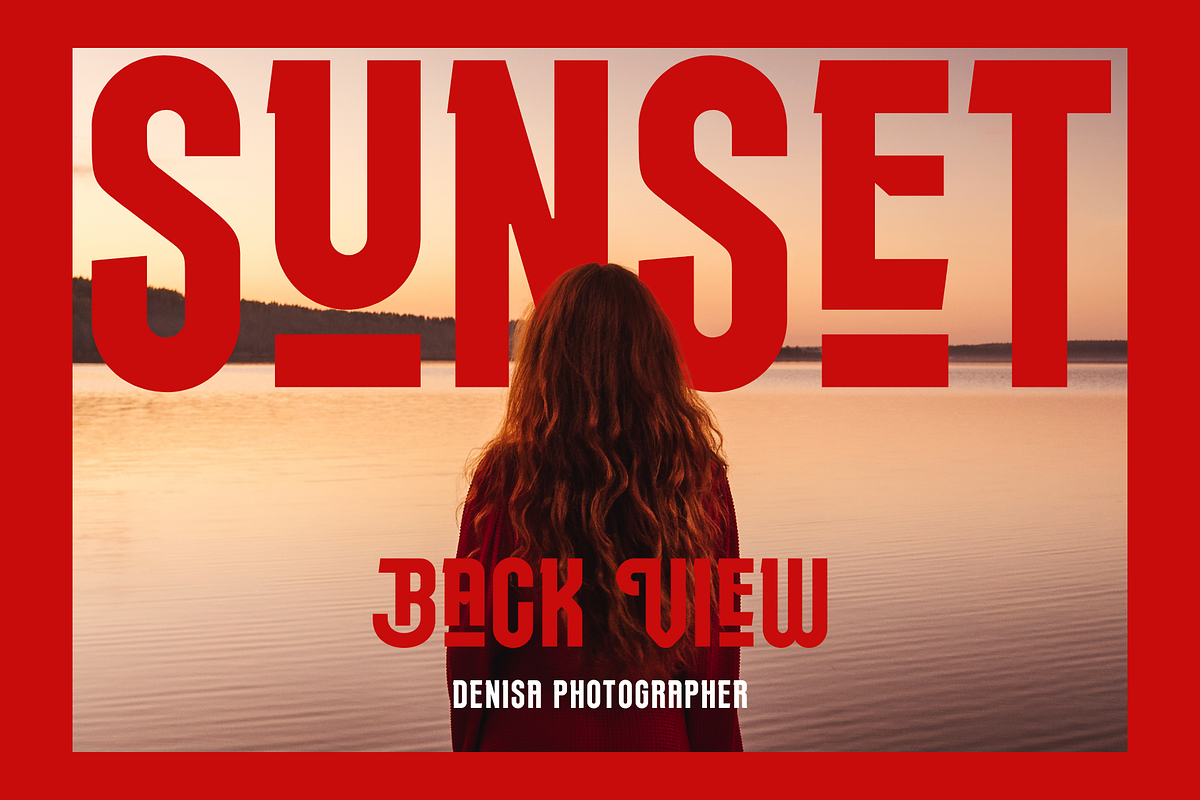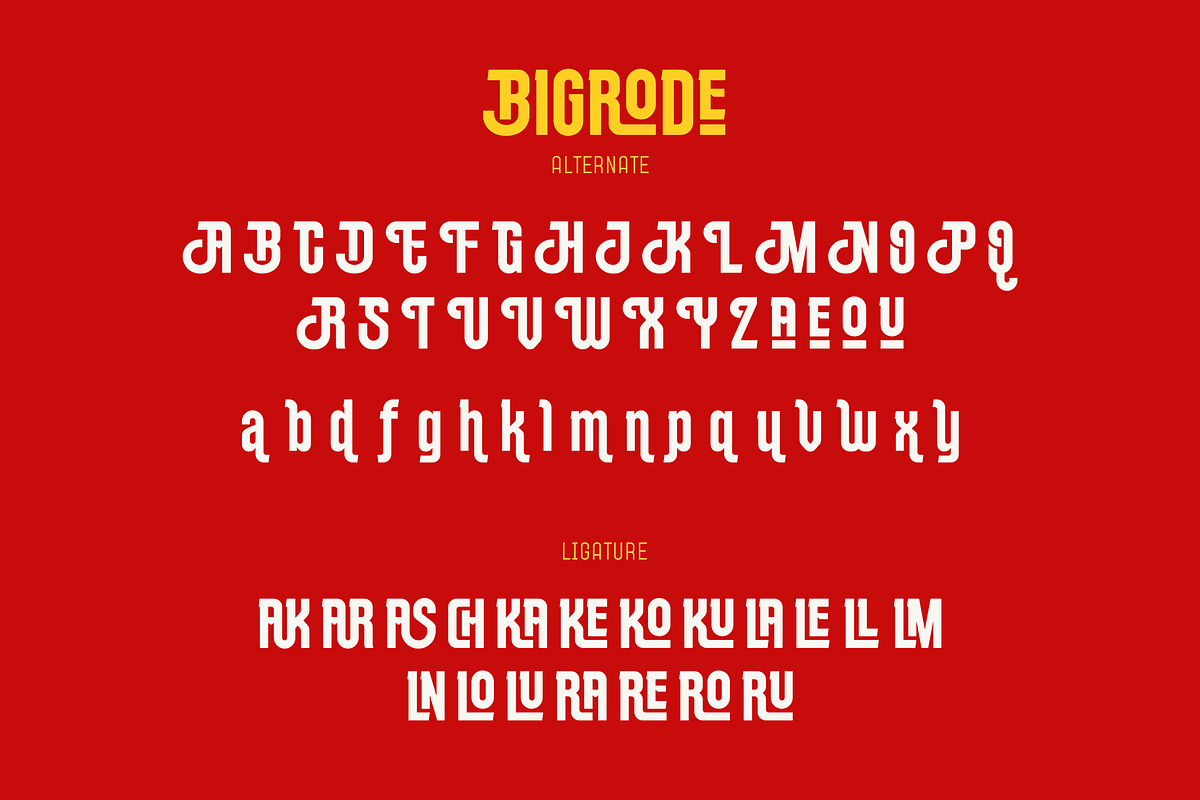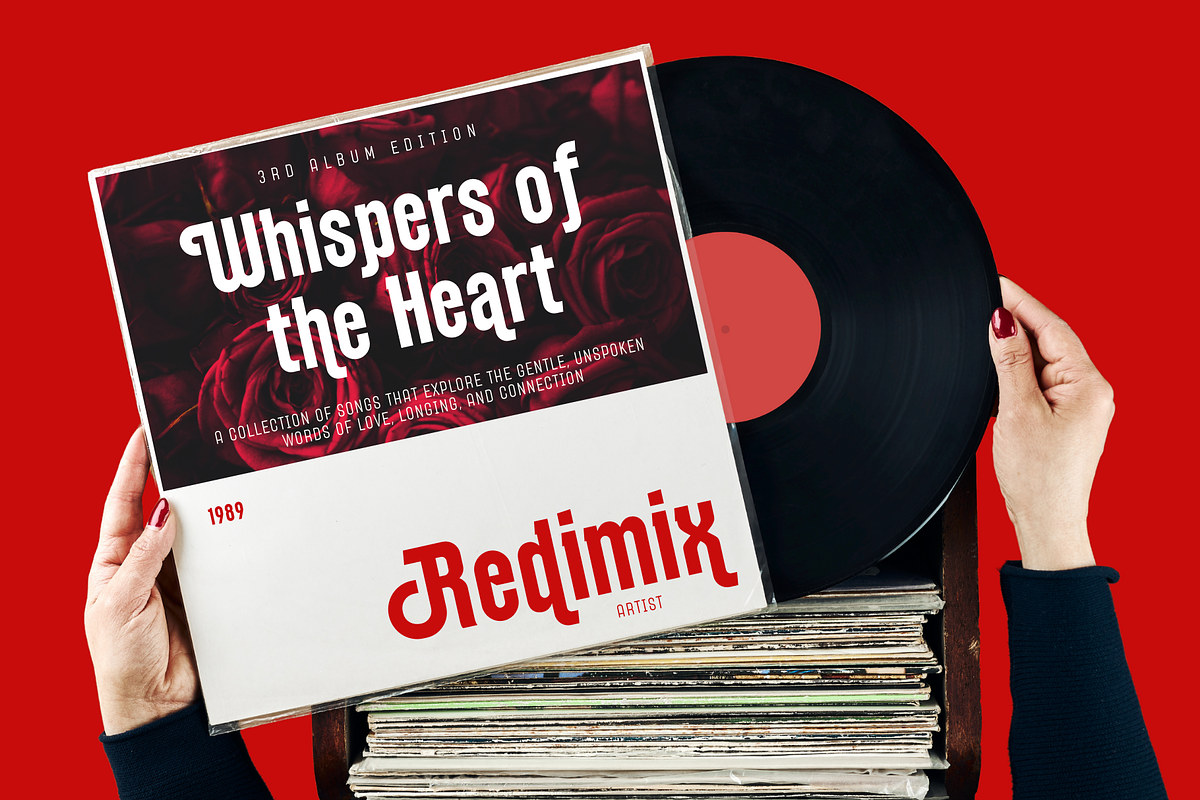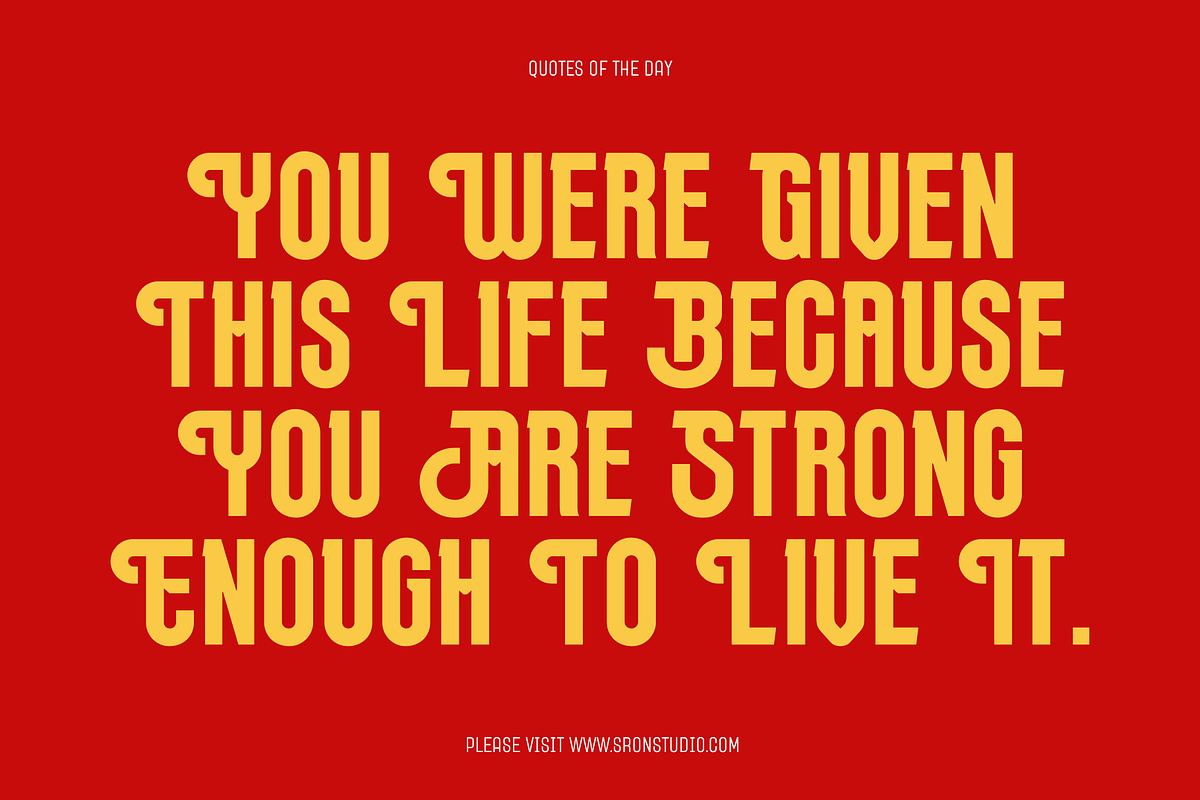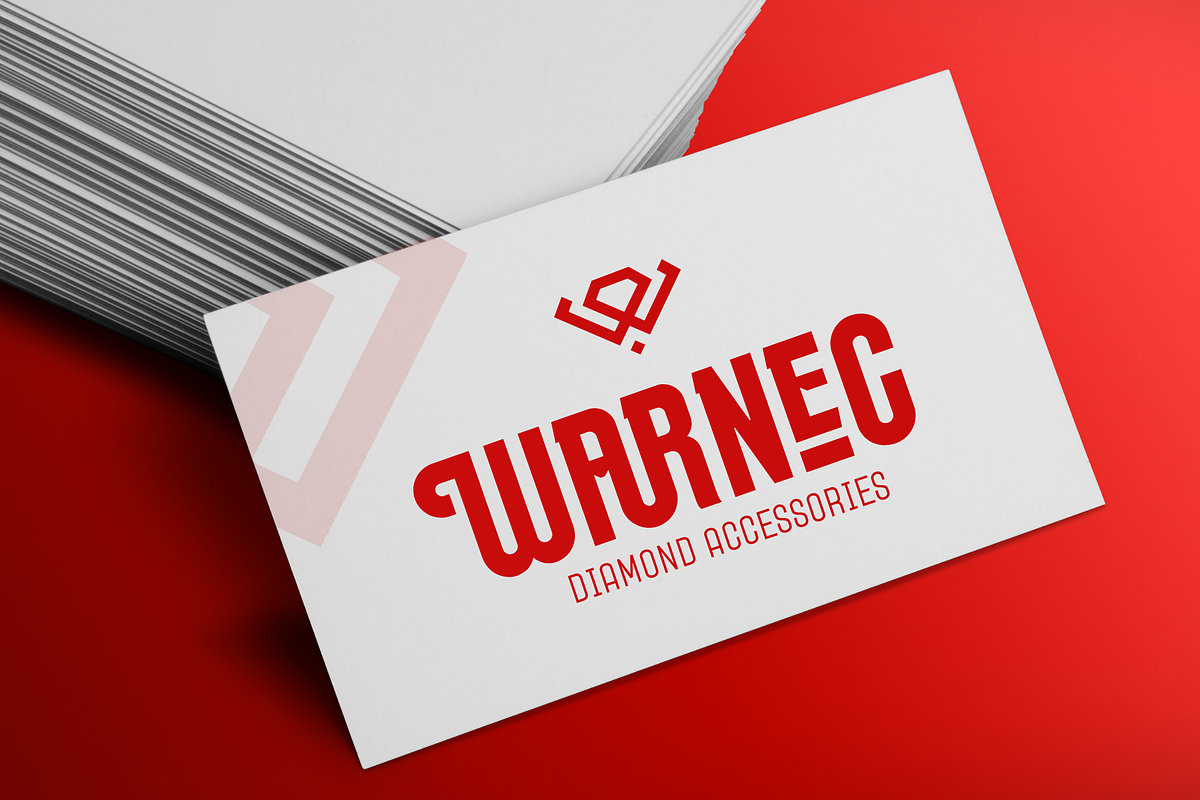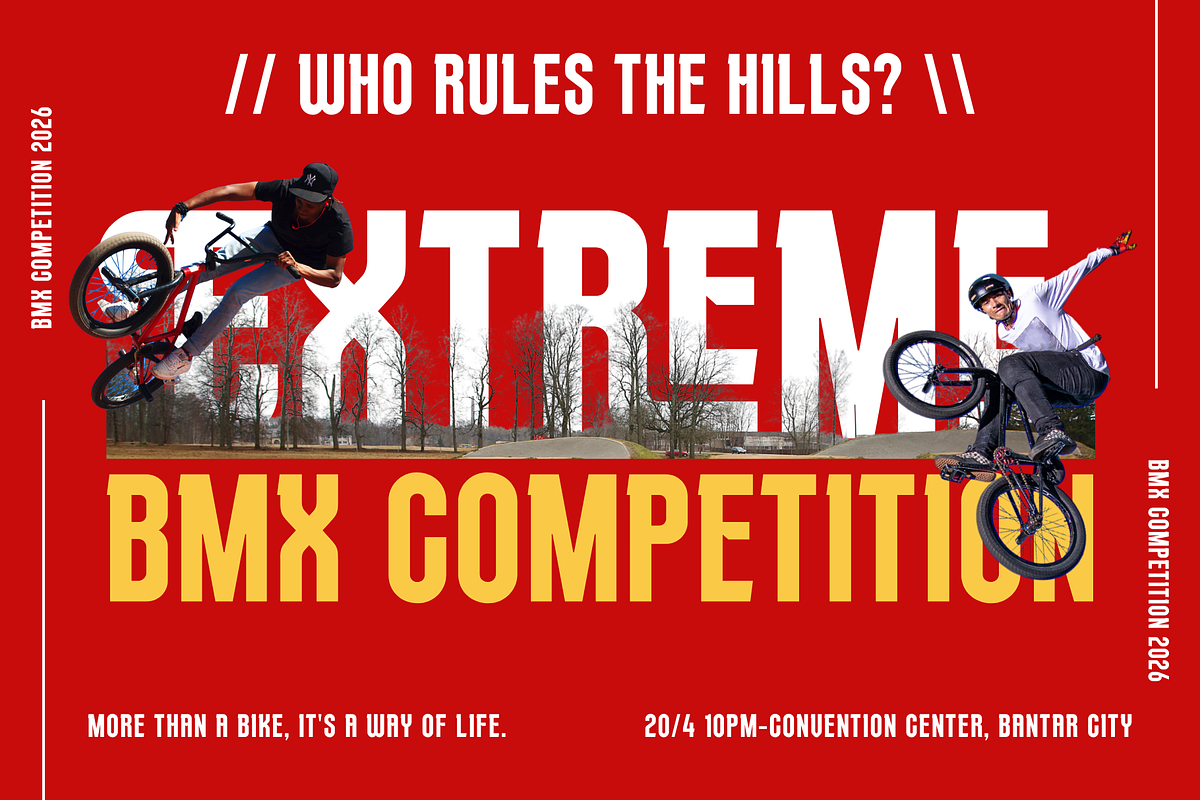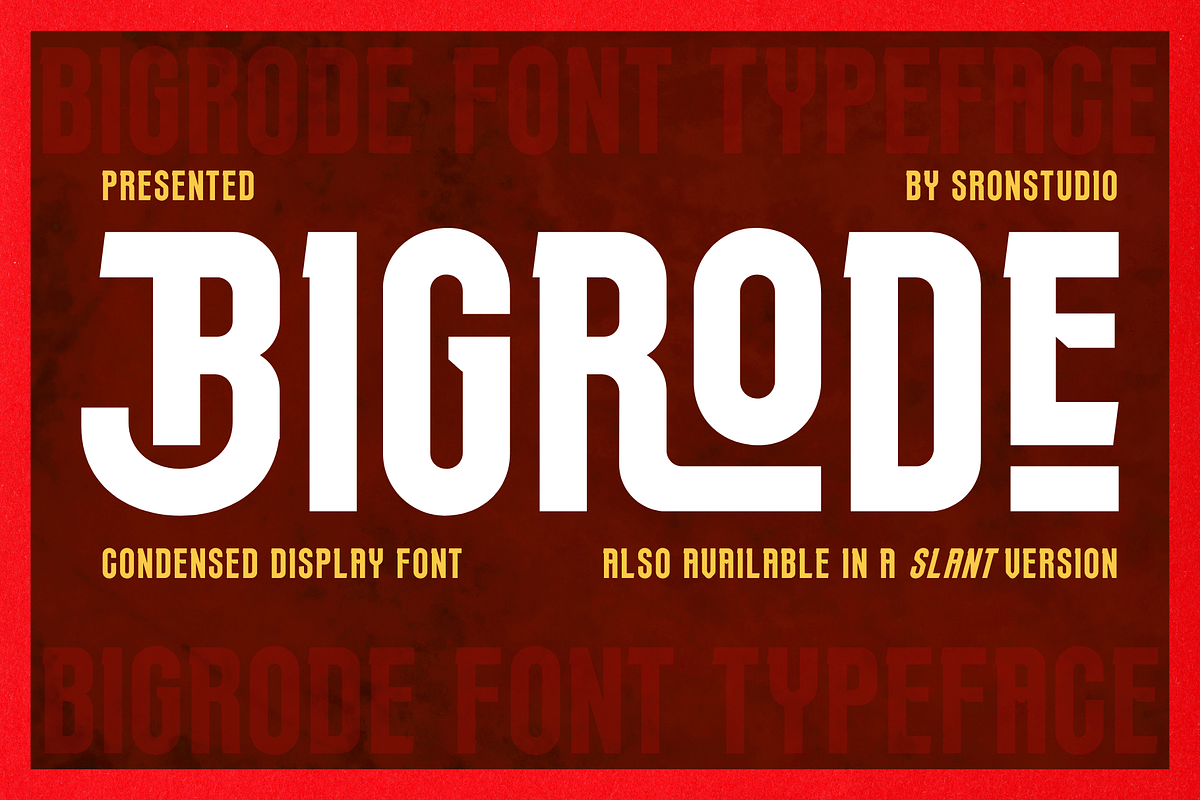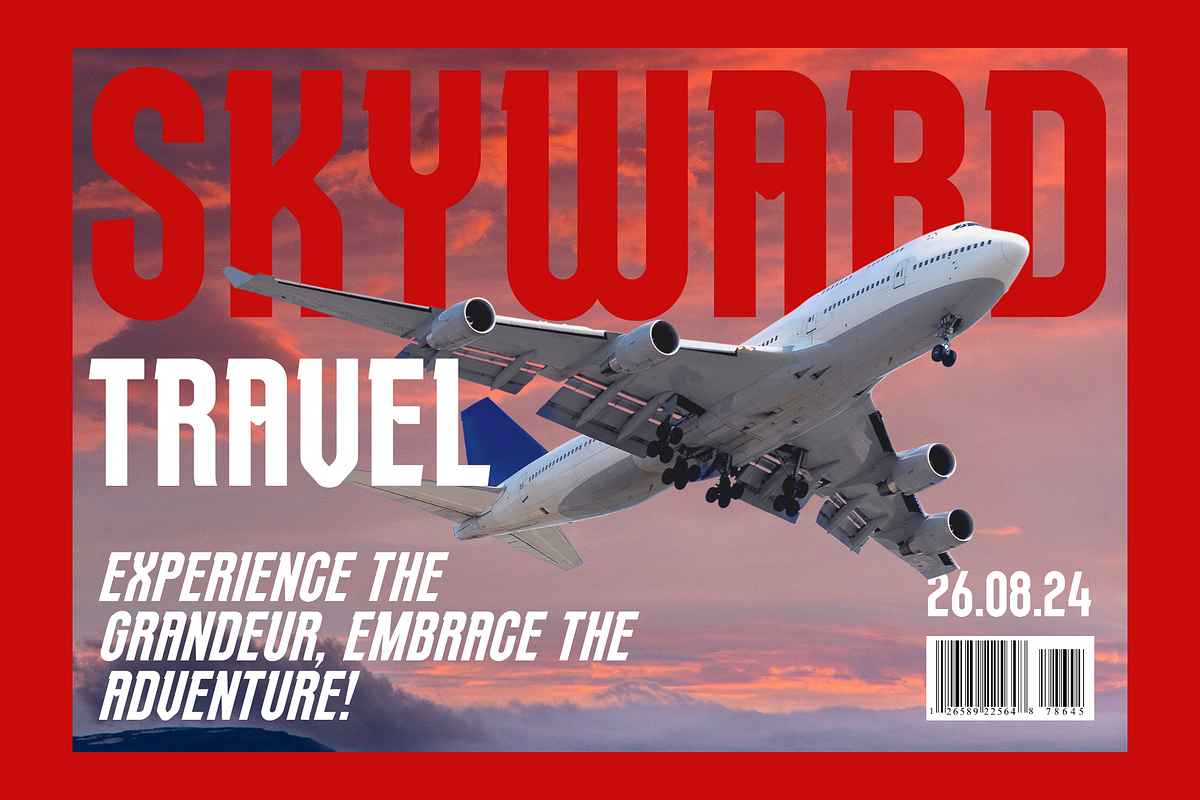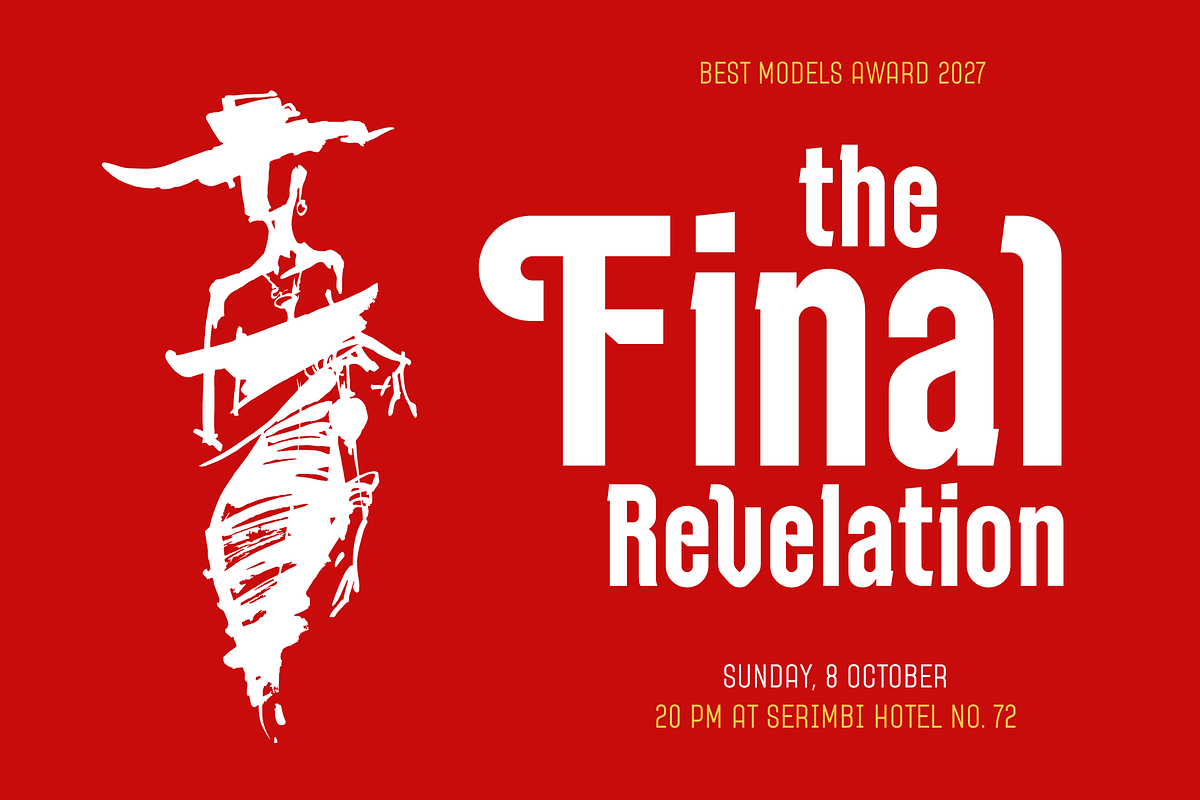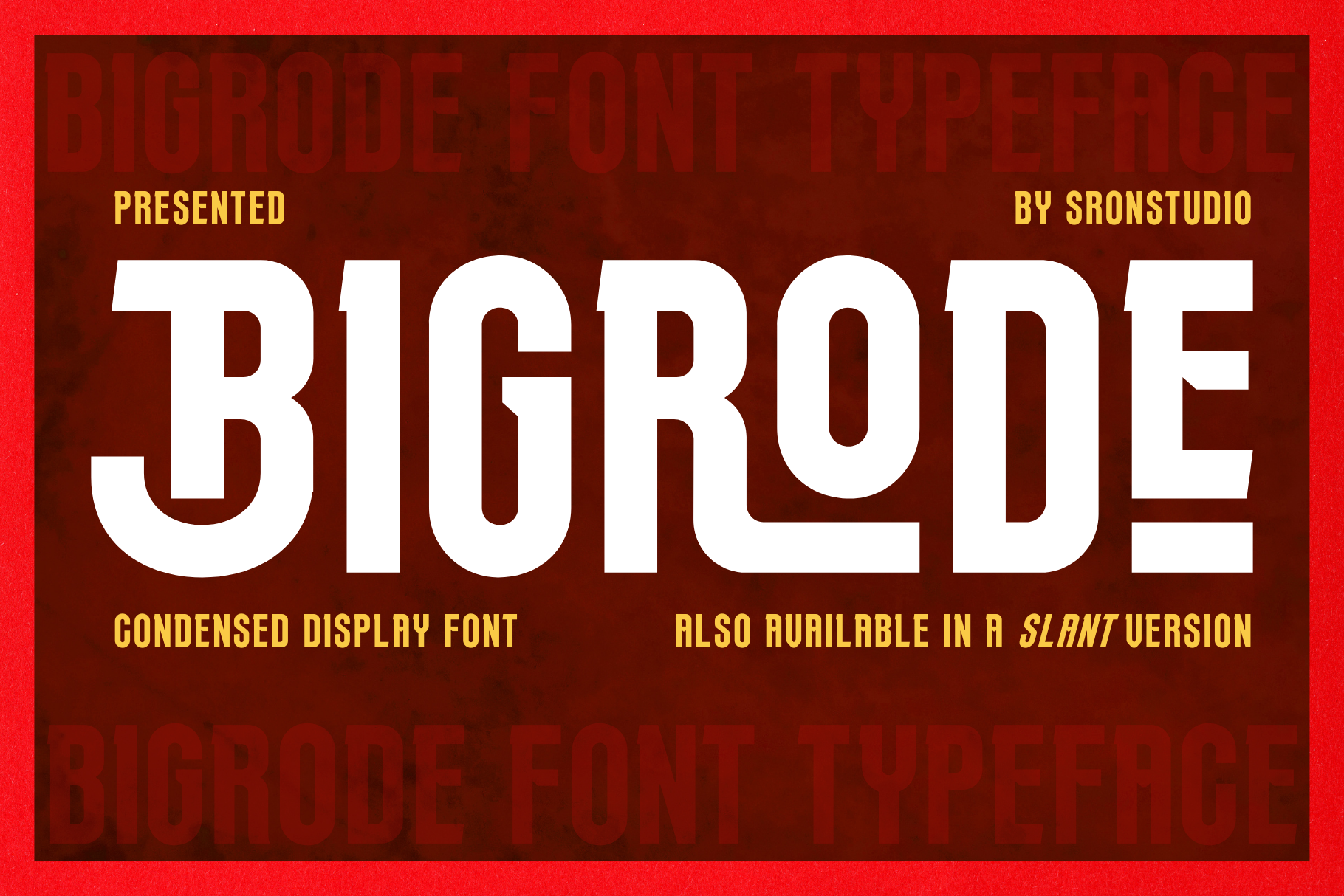
Bigrode - Condensed Display Font
Bigrode is a bold condensed display font that packs a powerful punch with its strong, impactful letterforms. Ideal for headlines, posters, branding, and advertising, this font commands attention with its striking presence. Its condensed structure allows you to make the most of limited space without sacrificing legibility or style. Bigrode is perfect for any design that needs boldness and clarity with a modern, confident vibe.
- Regular & Italic Style